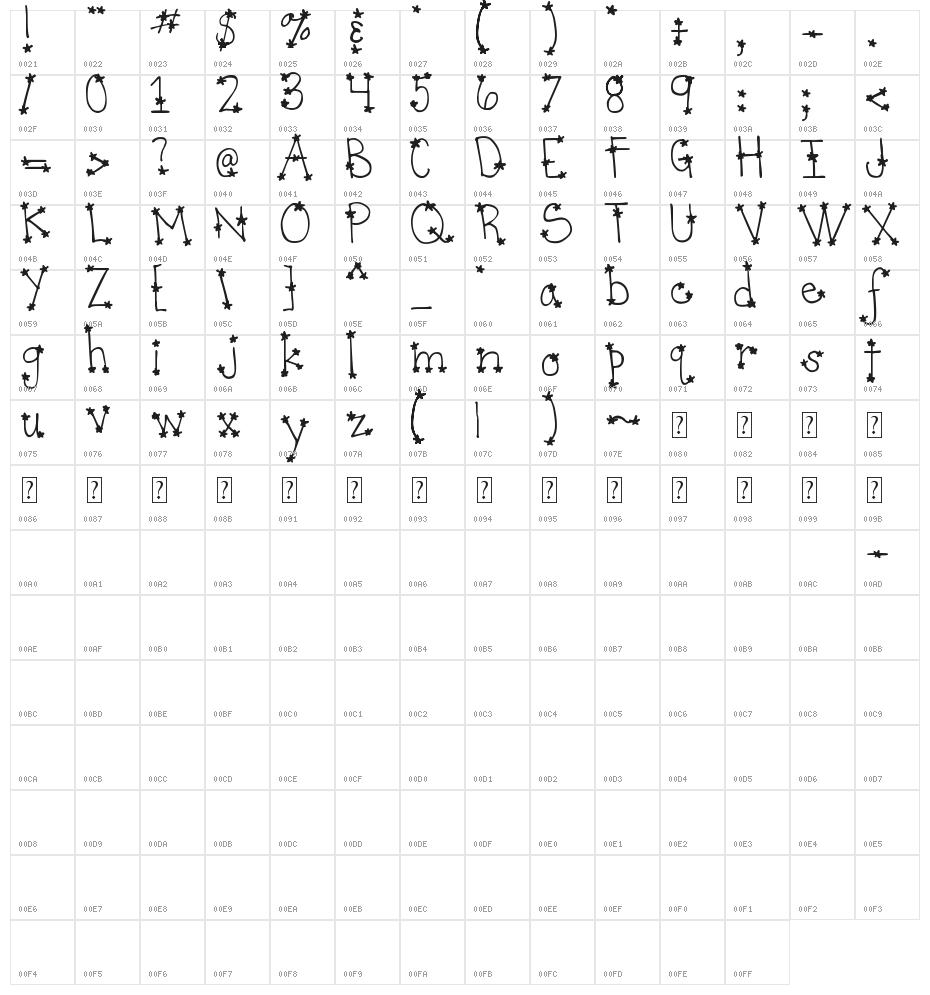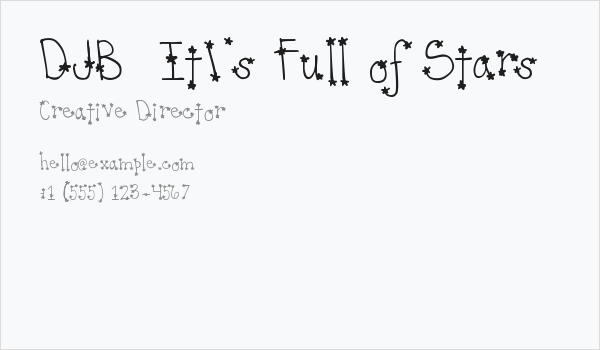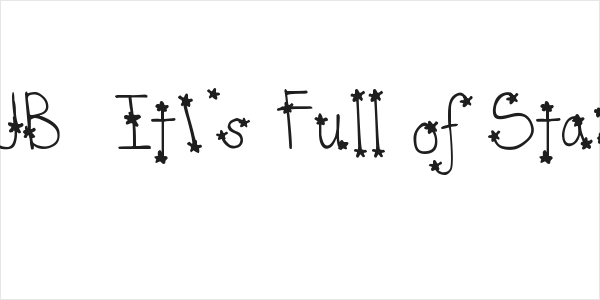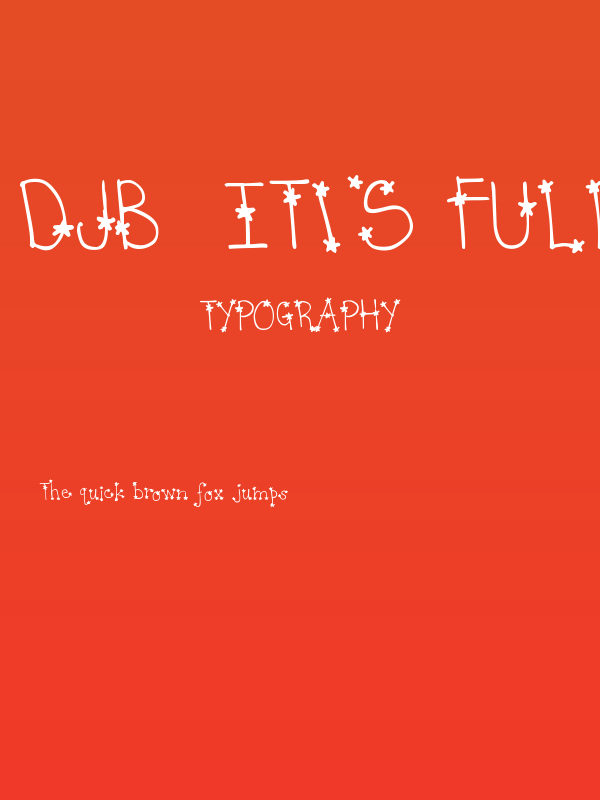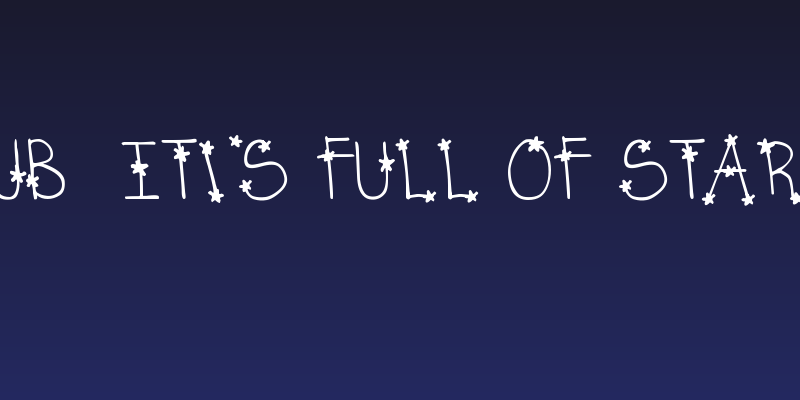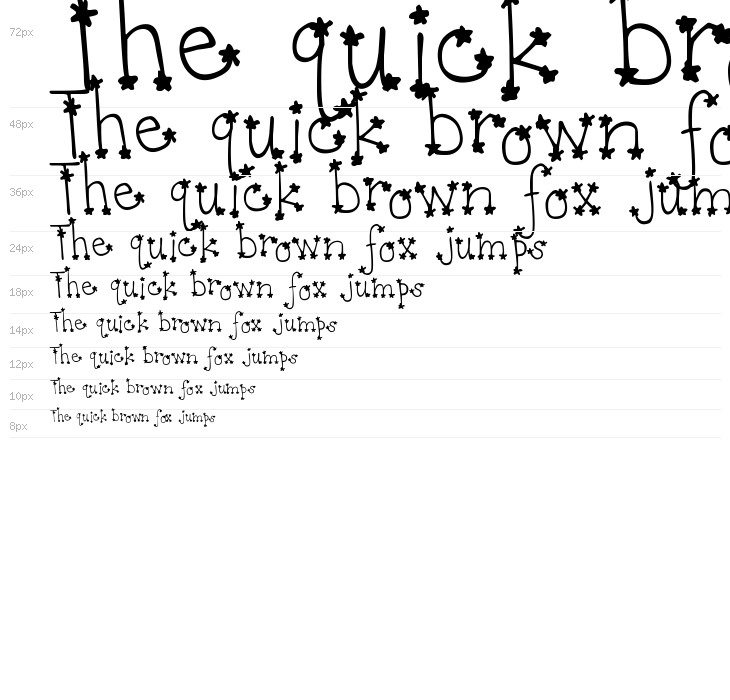
DJB It's Full of Stars Font
DJB It's Full of Stars Description
| Proposed Projects | Ideal for children's books, playful invitations, greeting cards, and any project needing a whimsical touch. |